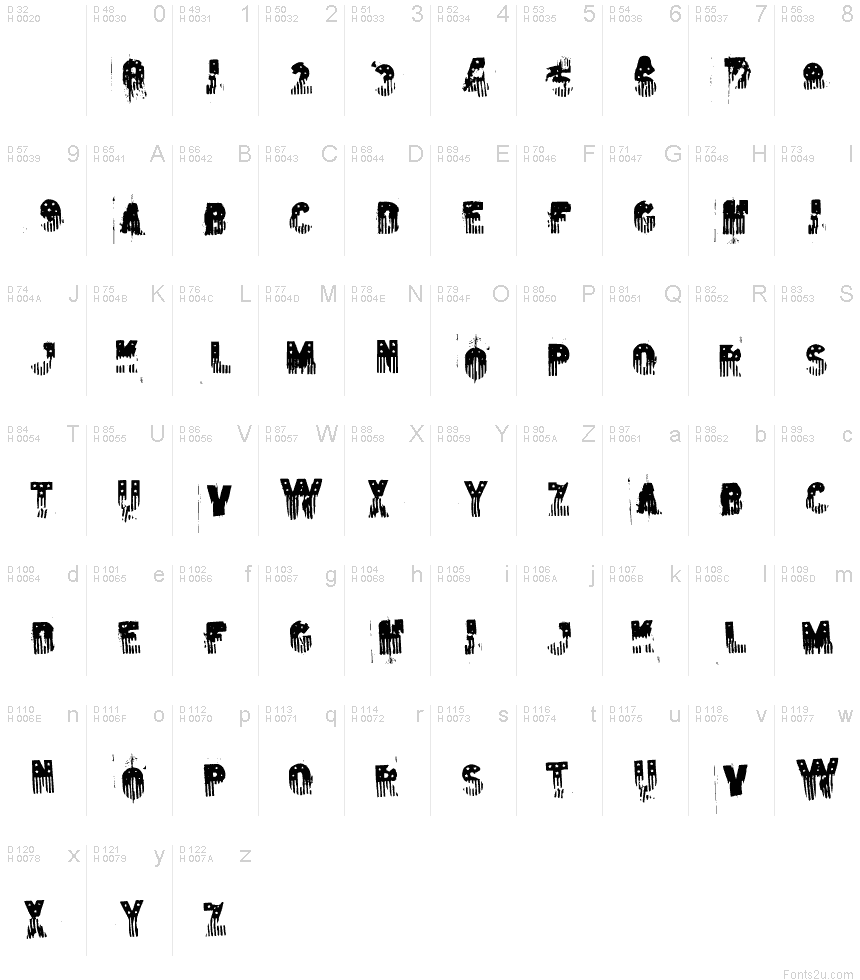
the american flag
The American Flag by Bradford is a free eroded display font with a horror-poster edge. Ragged block letters break into streaks, splatters, and long downward drips. Star cutouts give the design a distinctly American motif.
It suits audiences drawn to punk graphics, haunted attractions, and subversive Americana. The rough lettering can shape concert posters, Halloween event graphics, and rebellious merchandise. Across those uses, the mix of flag imagery and distressed paint turns the type into part of the illustration.